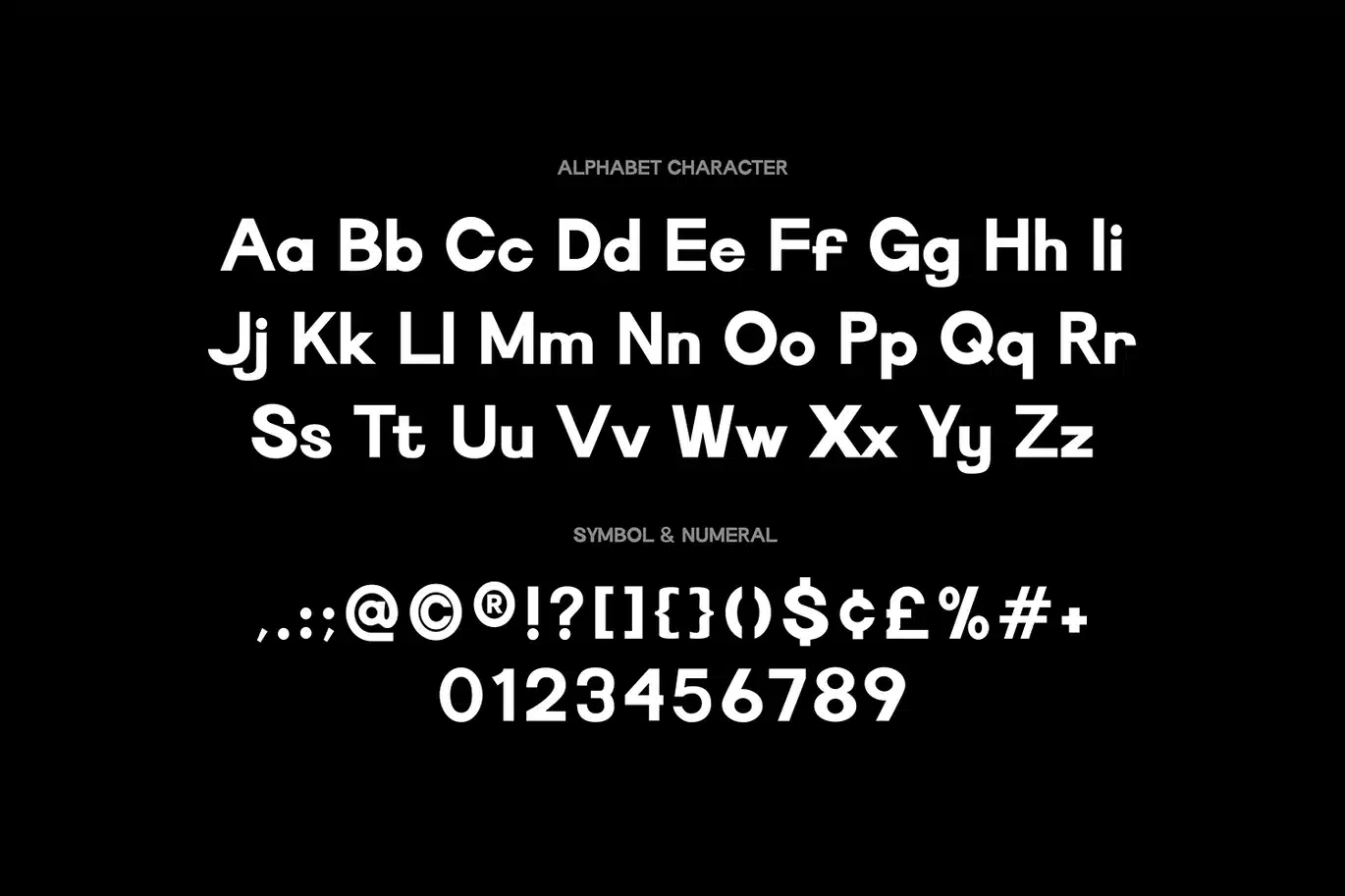
Sounds – Modern Logo Font
Sounds font is a modern and bold display typeface designed to deliver a clean and futuristic look for logo and digital branding projects. With its smooth geometric structure and minimal approach, this font reflects a strong technology-driven aesthetic, making it perfect for tech startups, gaming visuals, and digital platforms. Its square-inspired forms and balanced proportions create a sharp and confident style that stands out across movie posters, animation titles, and modern visual compositions.
Built for versatility, Sounds font adapts seamlessly across a wide range of creative applications, from sleek technology branding to eye-catching poster and gaming designs. The clean and bold character ensures excellent readability while maintaining a strong digital presence, making it ideal for logos, interfaces, and futuristic concepts. Sounds stands among modern fonts that combine clarity, innovation, and impact for cutting-edge design.